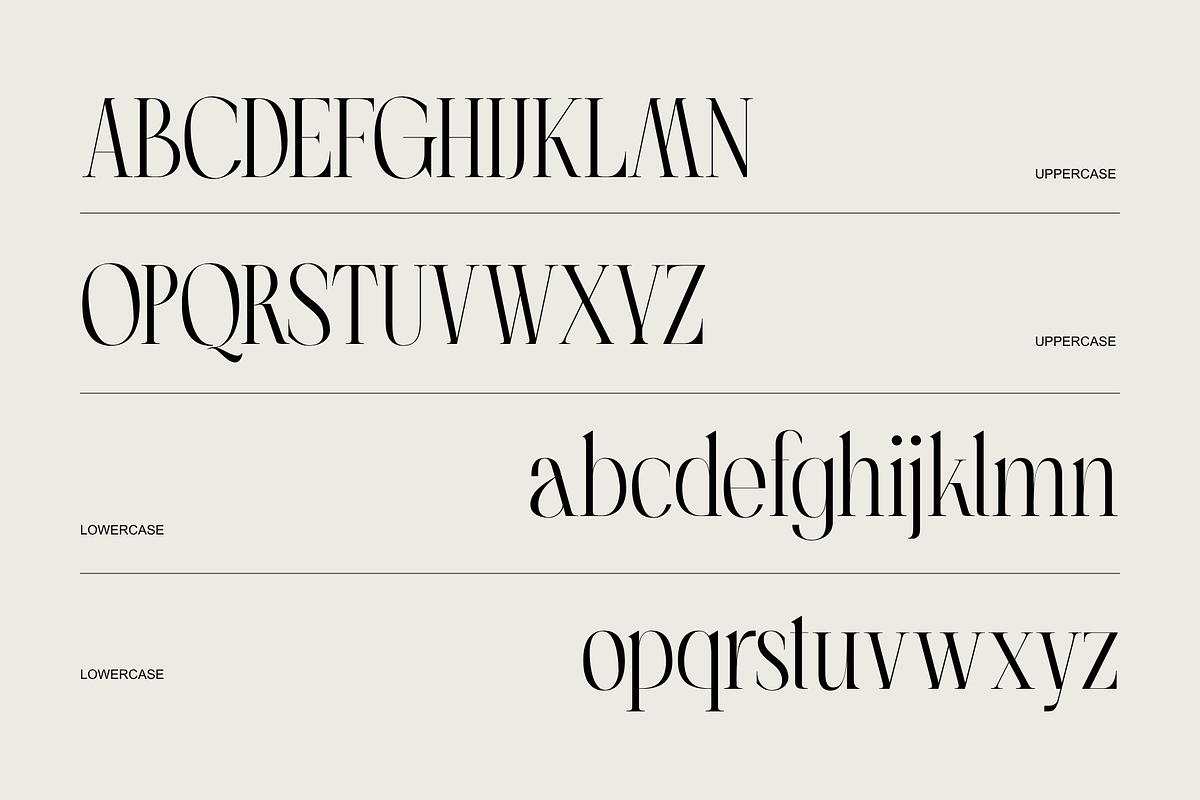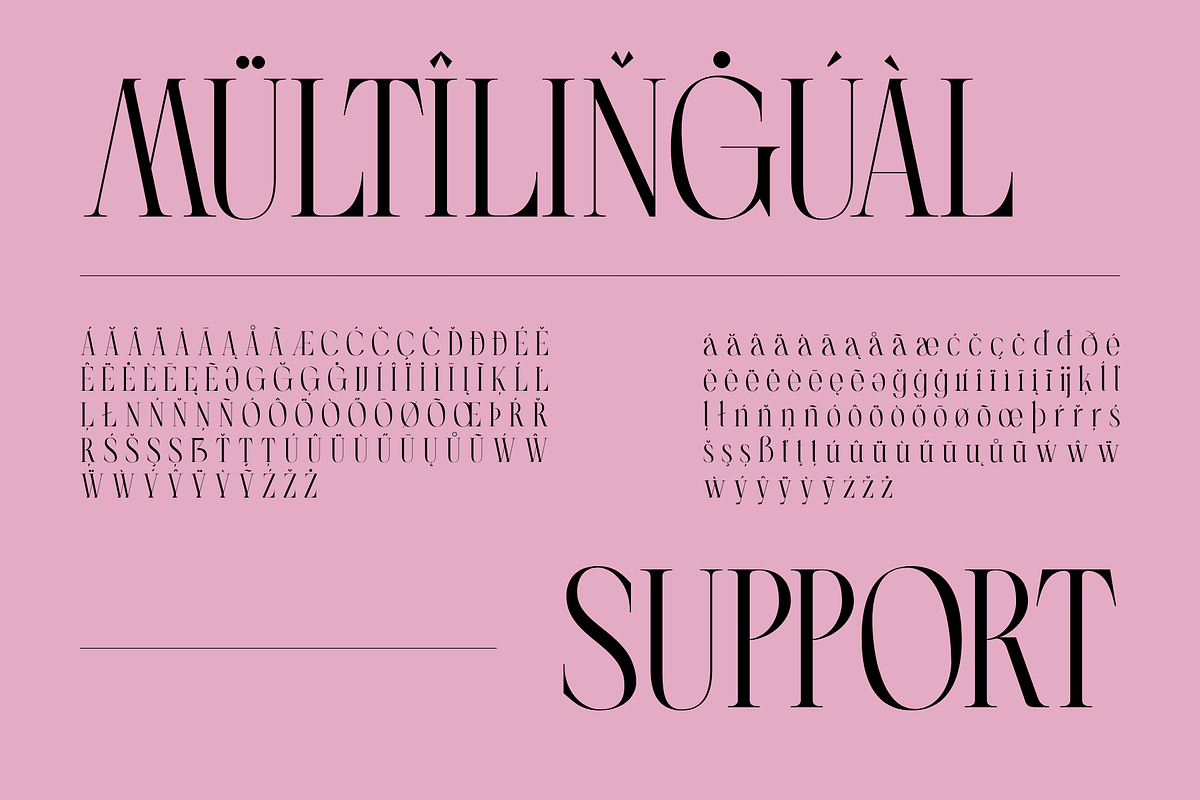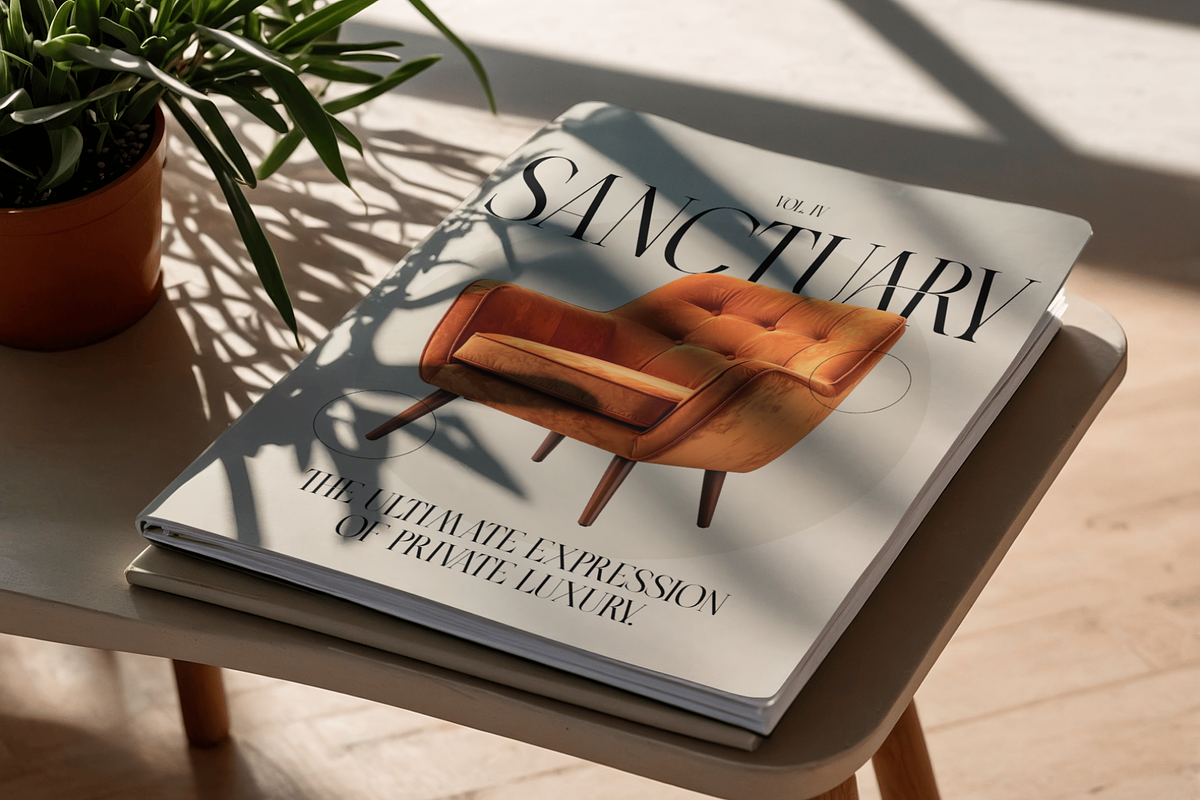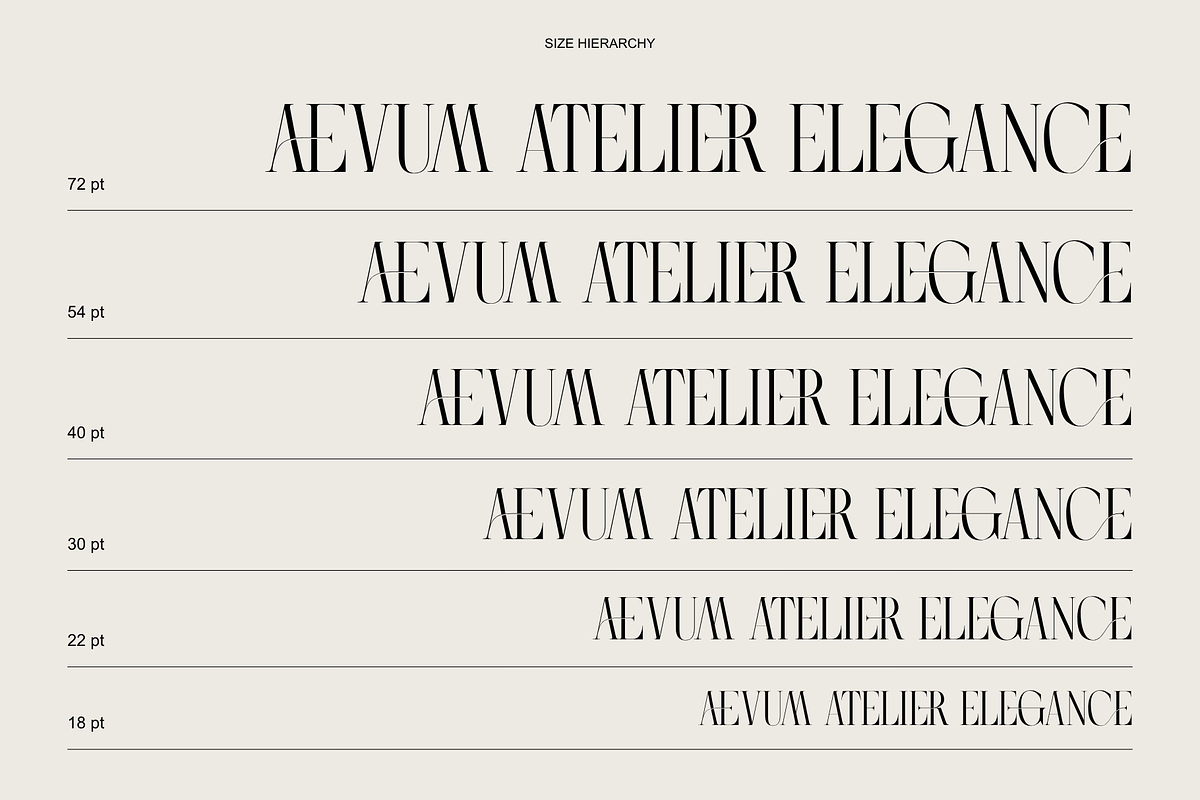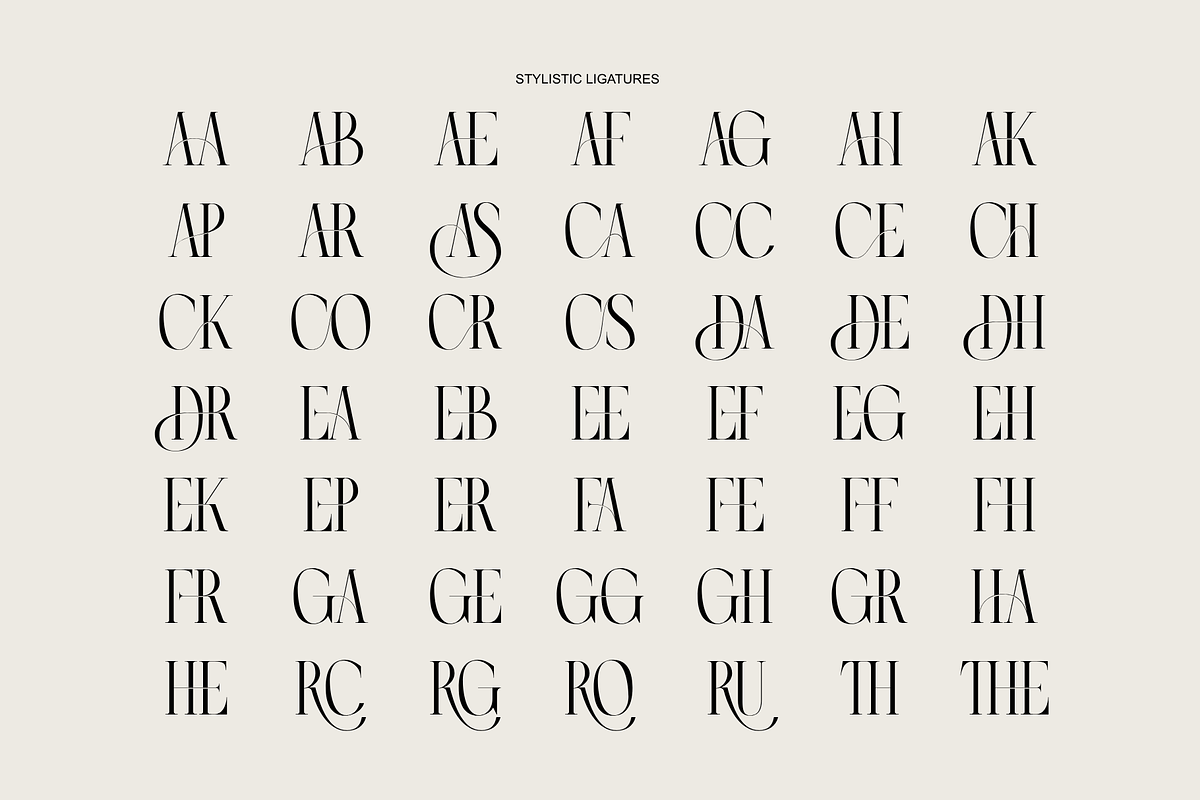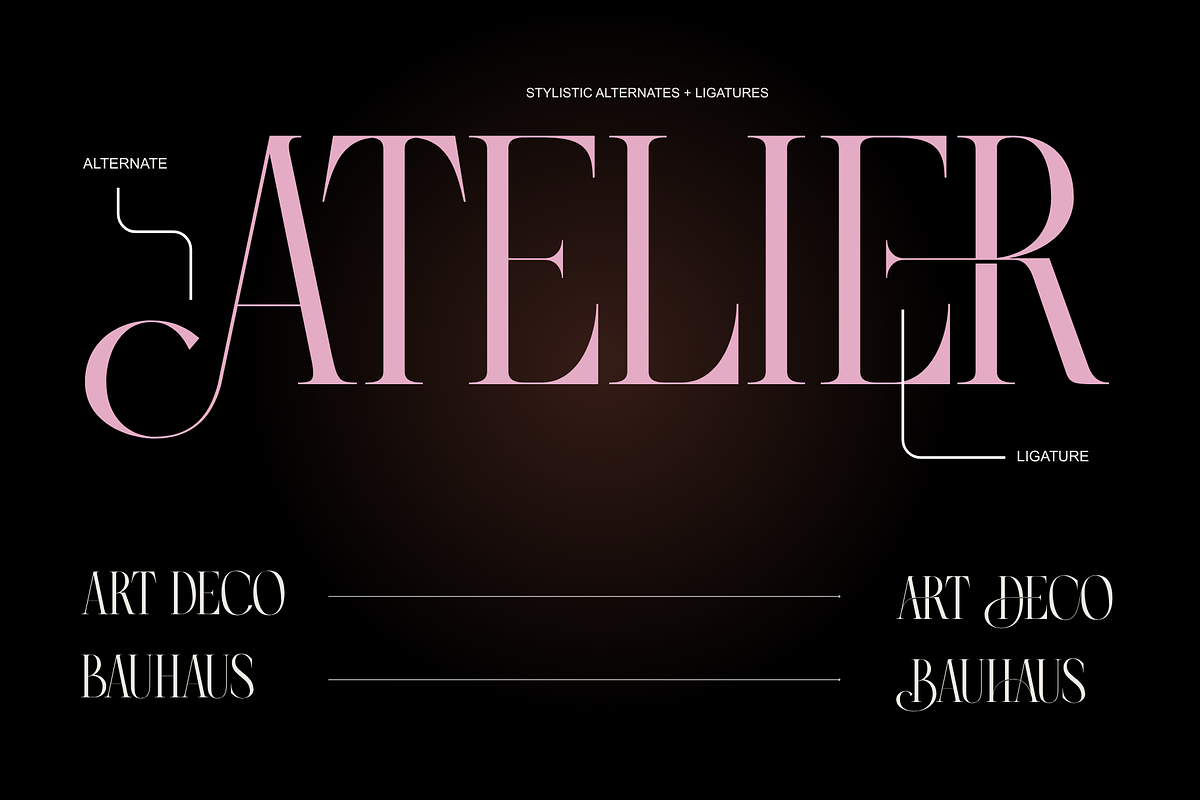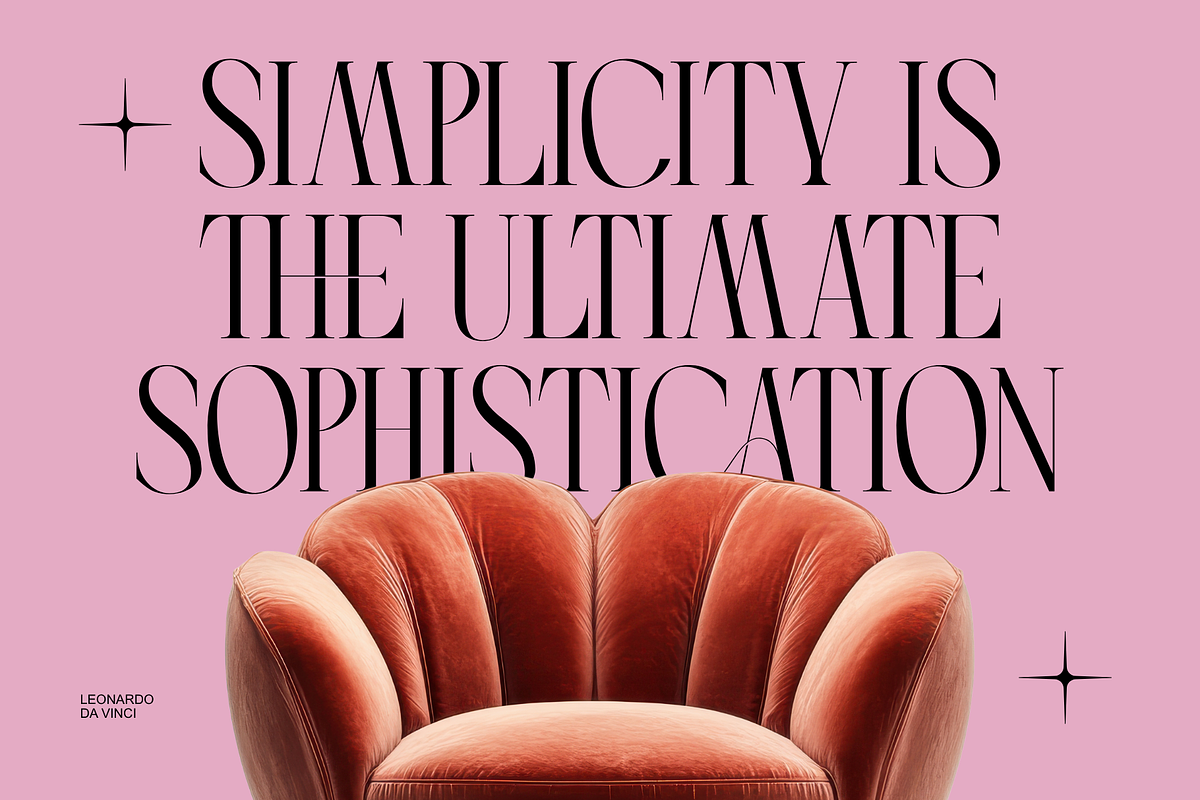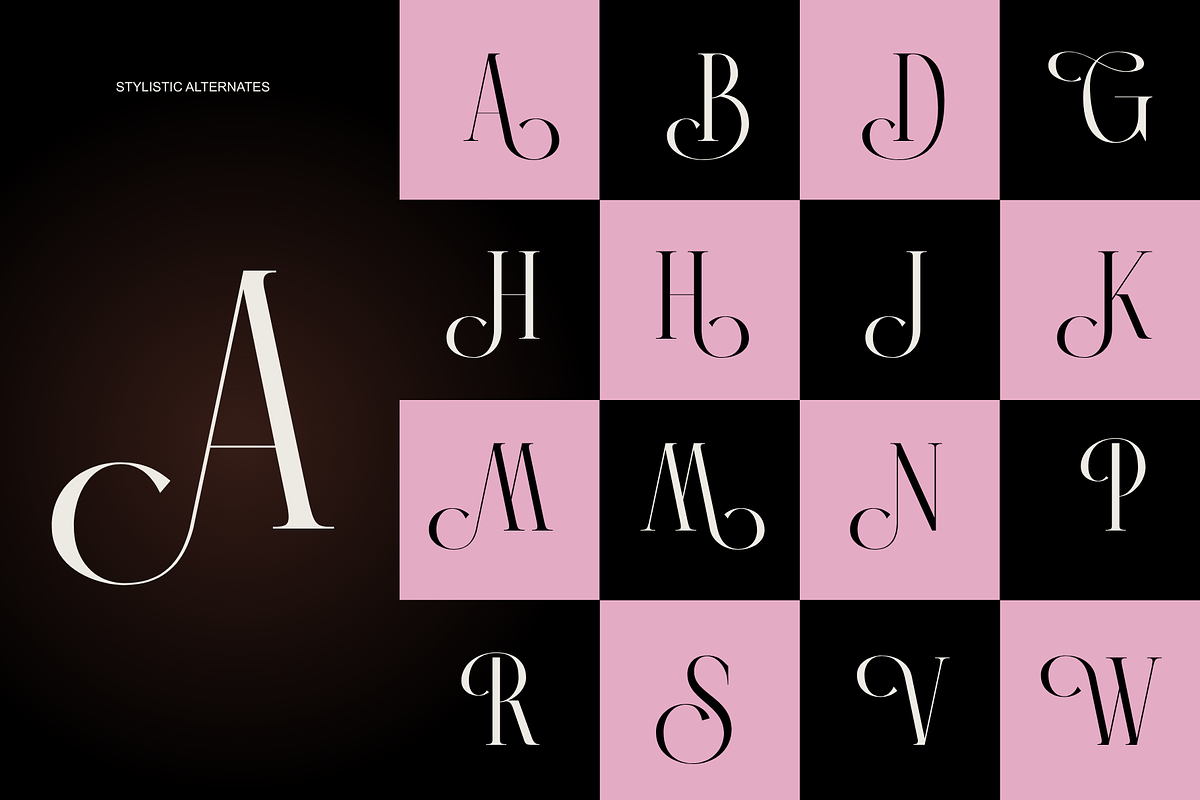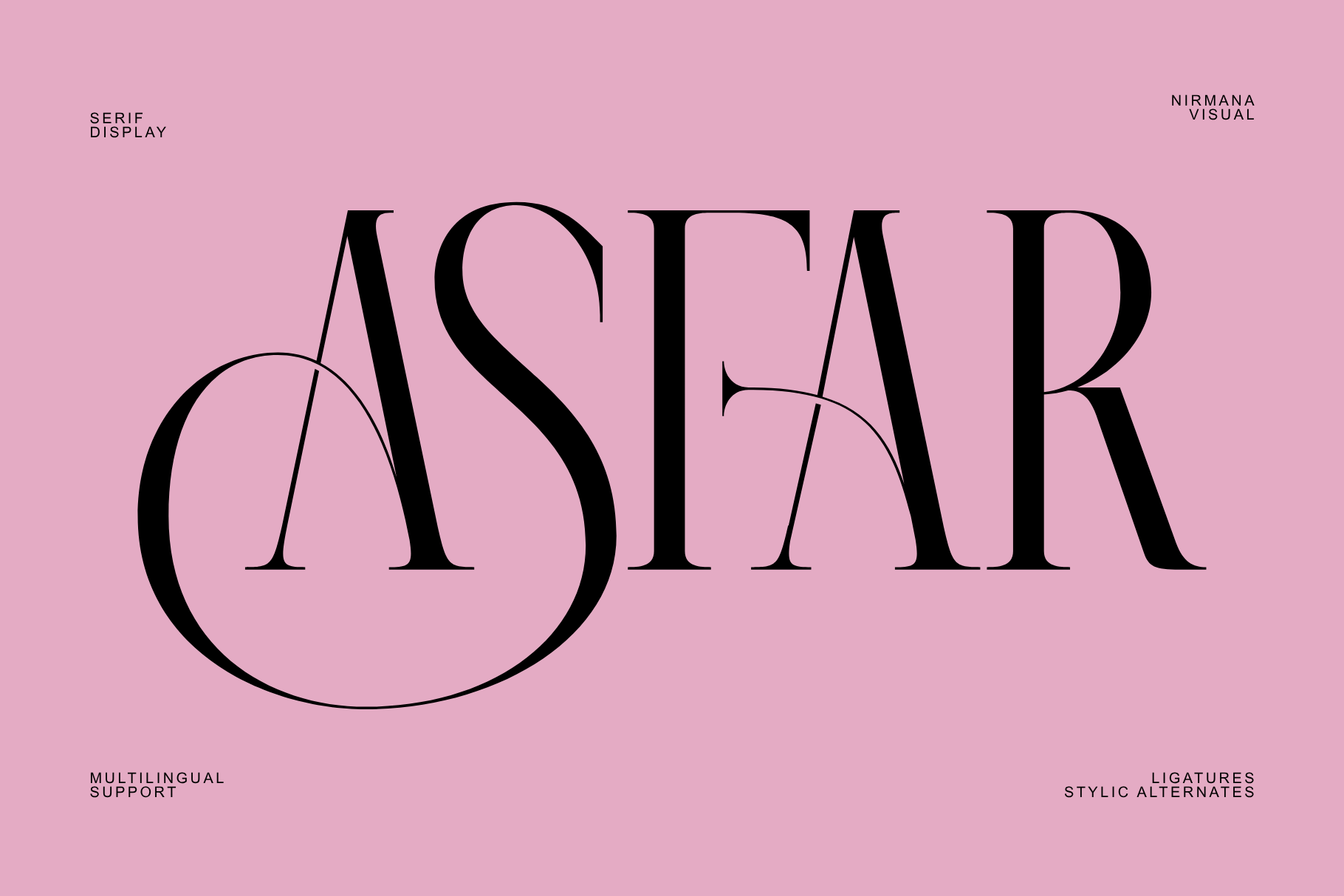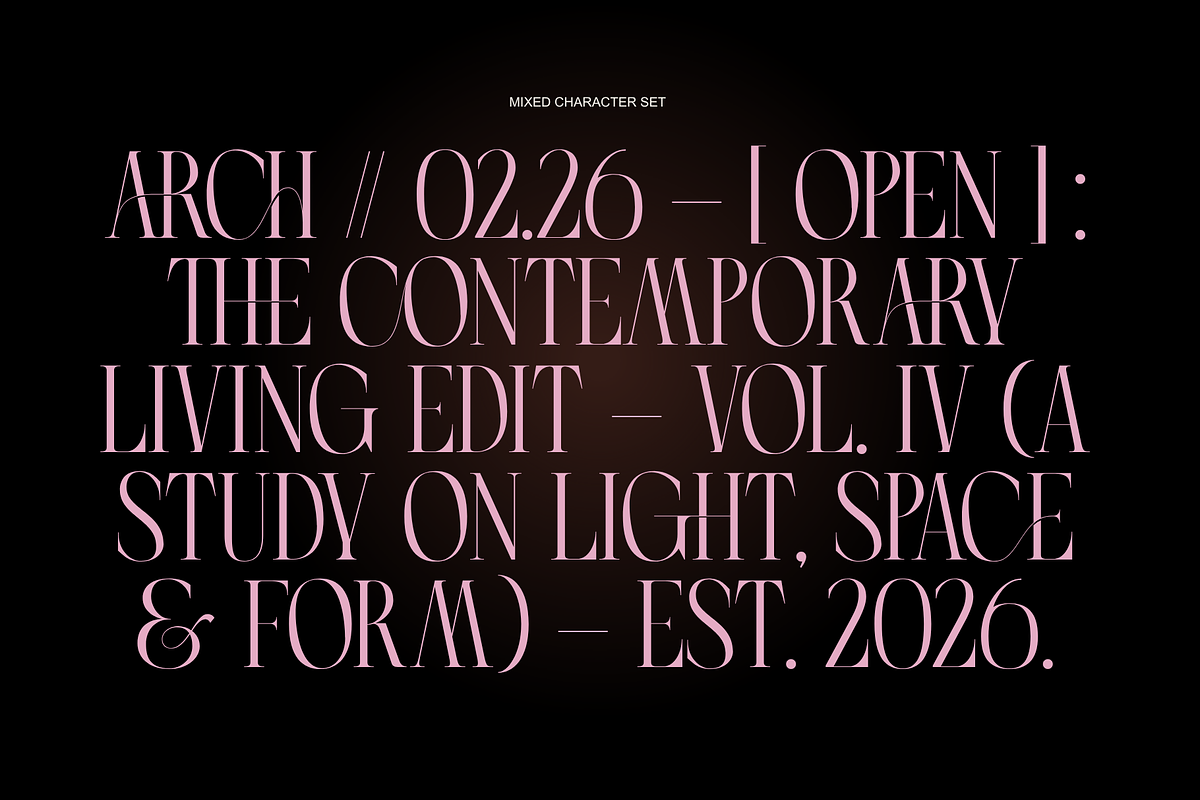
Asfar - Modern Ligatures Font
Introducing Asfar, an elegant serif display font designed to elevate your branding and visual projects. Crafted with refined curves, high contrast, and a sophisticated aesthetic, Asfar features stunning unique ligatures and stylistic alternates that add an effortless touch of luxury to any composition. Complete with multilingual support, this typeface is ideal for luxury logos, editorial layouts, fashion branding, magazine covers, wedding invitations, and high-end packaging. Upgrade your typography collection with Asfar and bring timeless sophistication to your designs today.